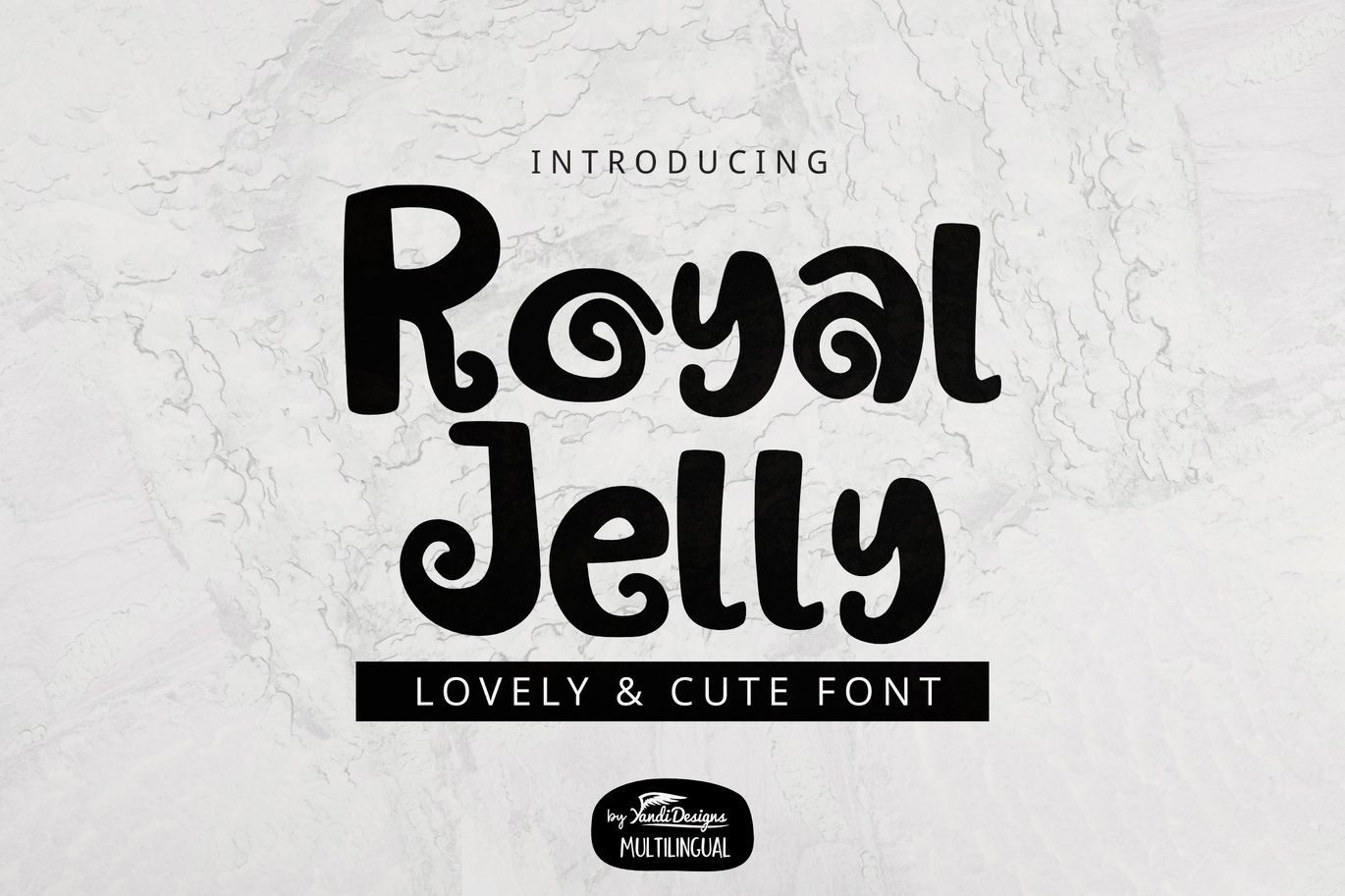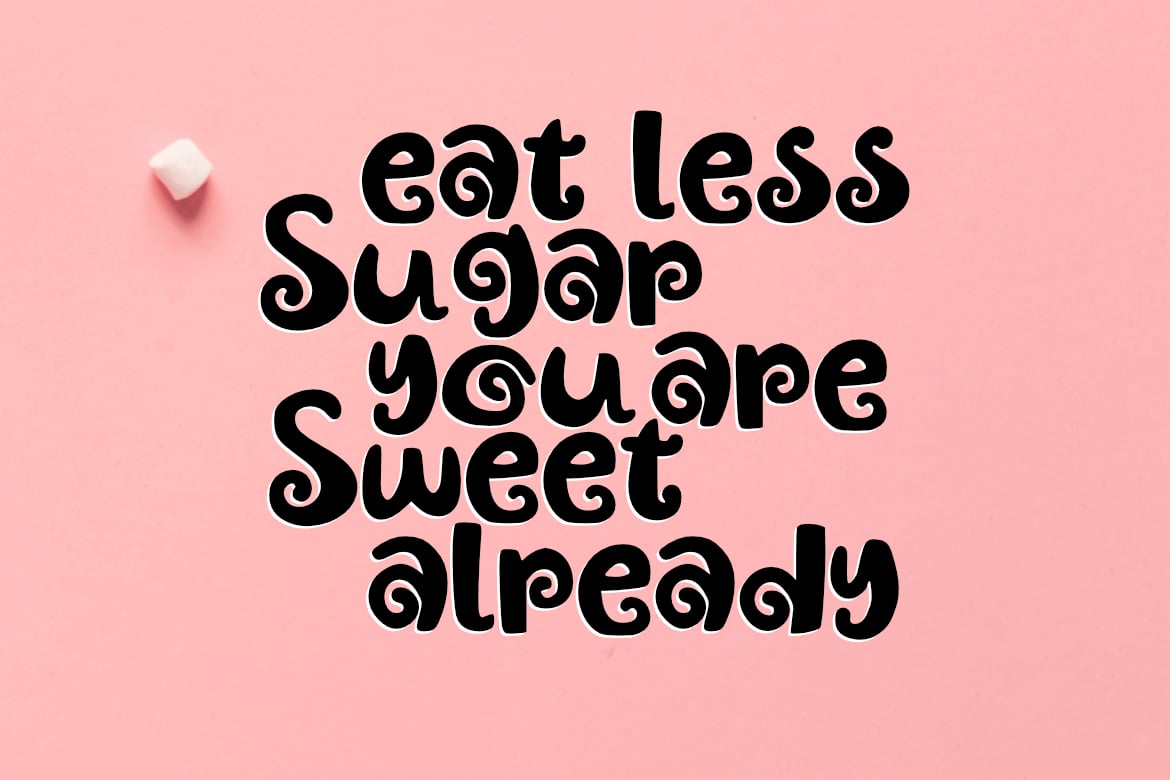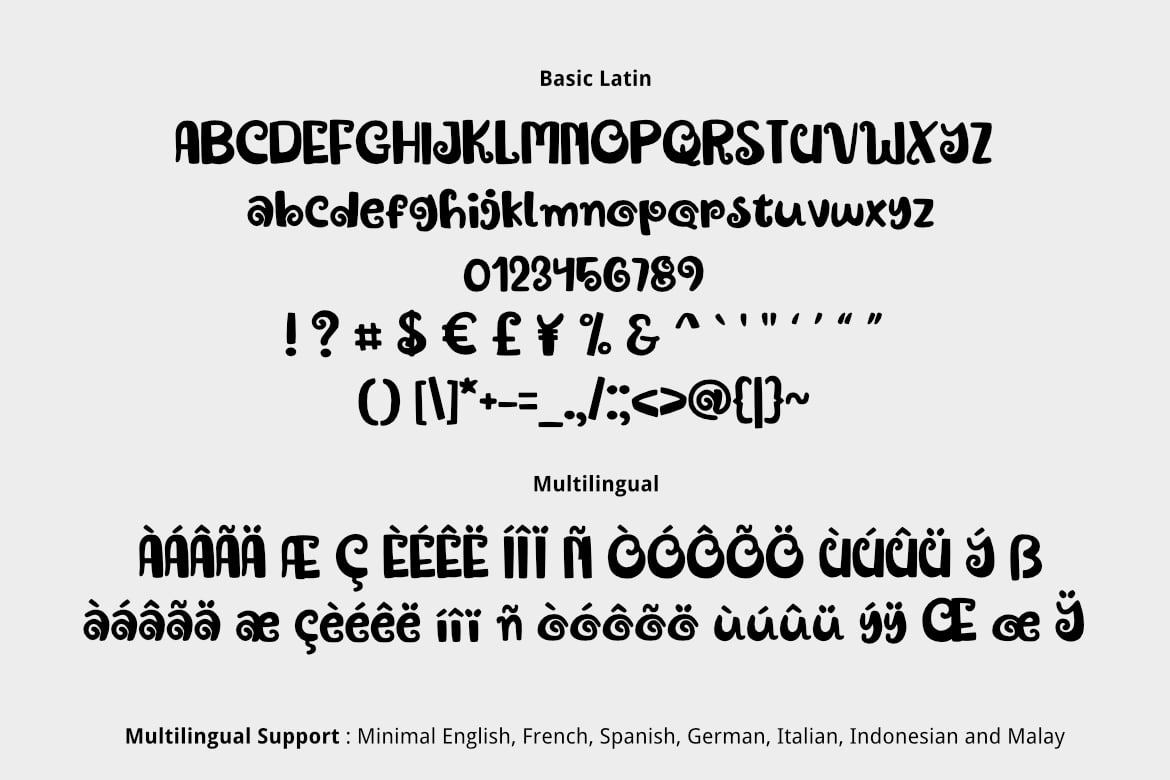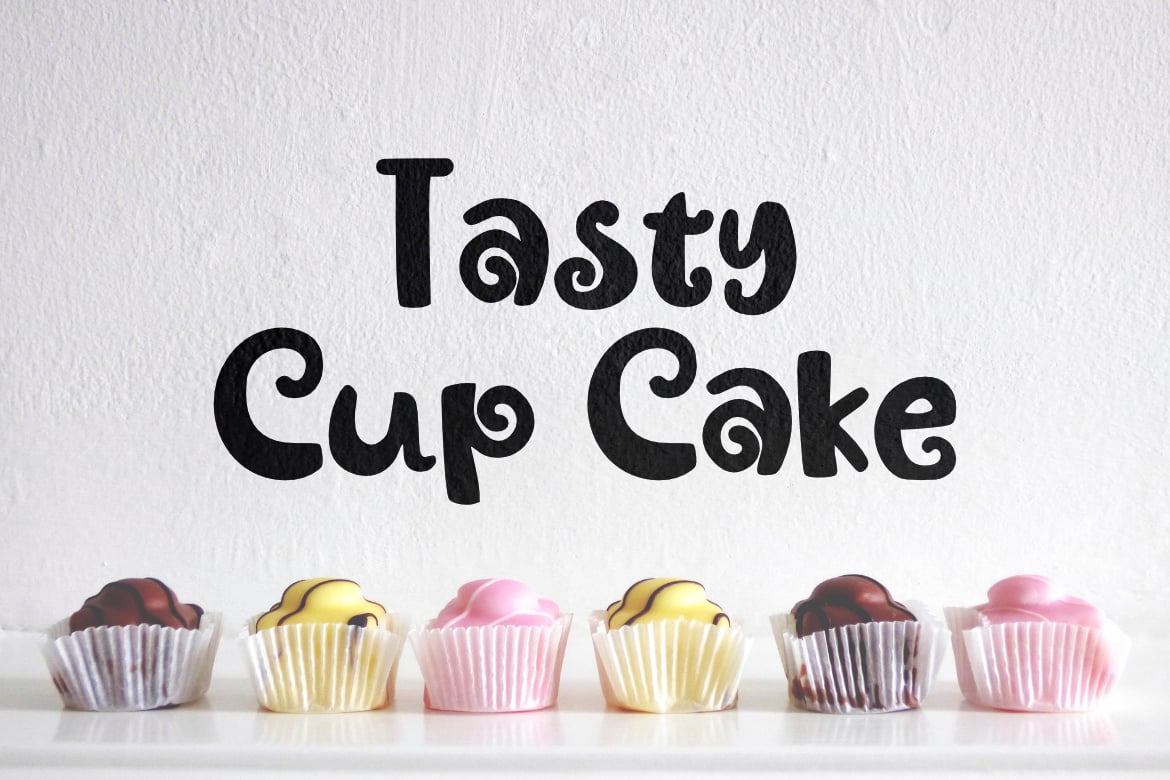
Royal Jelly Font
Royal Jelly Font is lovely cute multipurpose handmade font, suitable for many project children book, quotes, logo , heading , title etc.
Basic Latin (Standard English character , number, symbol)
Multilingual Support (minimal English, French, Spanish, German, Italian, Indonesian, Malay)